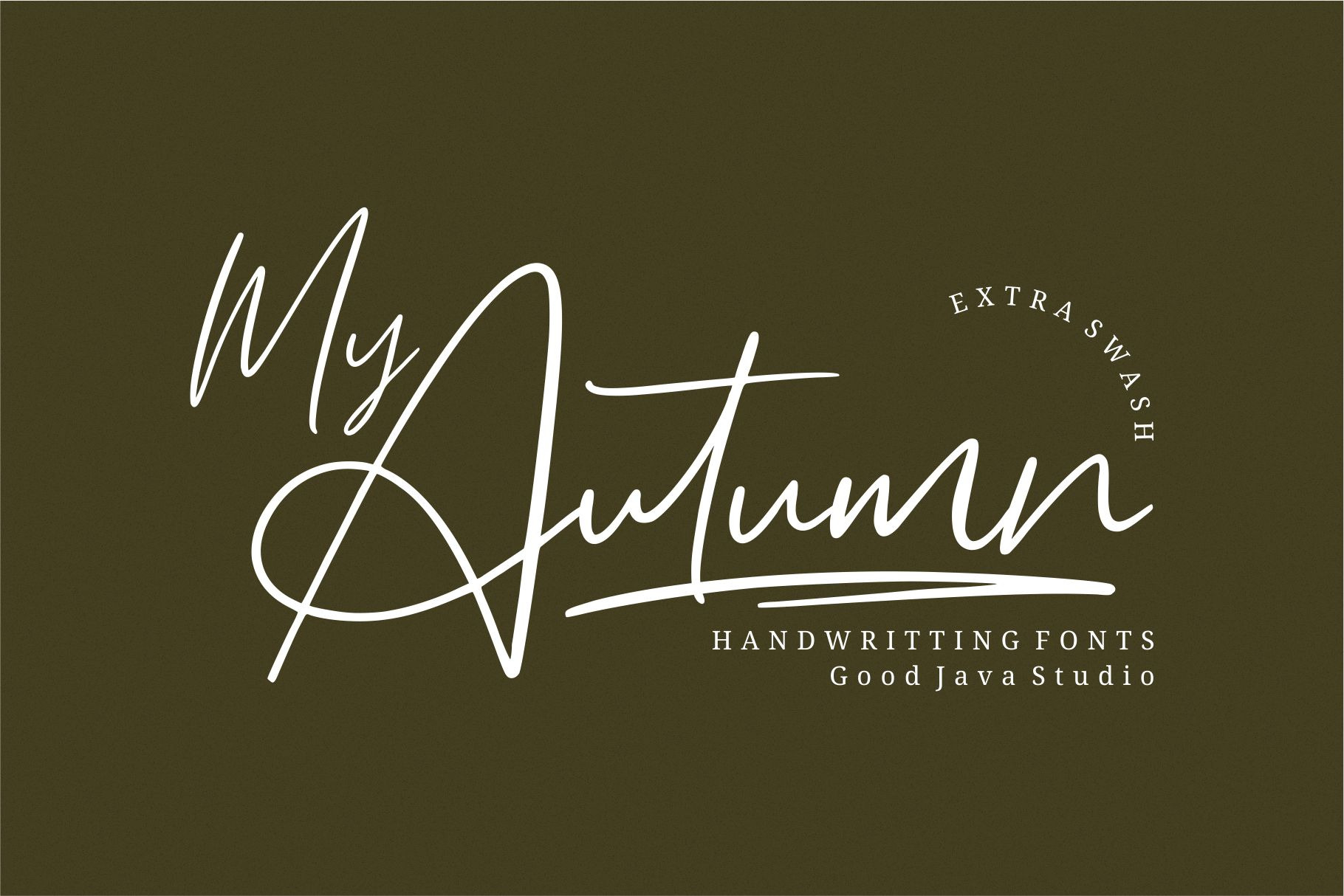
My Autumn Signature Font
Introducing to the new signature font: My Autumn
My Autumn - signature font is a natural & modern handwritten font. I'ts Perfect for logo, invitation, stationery, wedding designs, social media posts, advertisements, product packaging, product designs, label, photography, watermark, special events or anything. This font include : My Autumn OTF-TTF-WOFF and also Multilingual support.
What's Advantages My Autumn?
- Very great for branding, logotype, handletteing, invitations, or fashion branding.